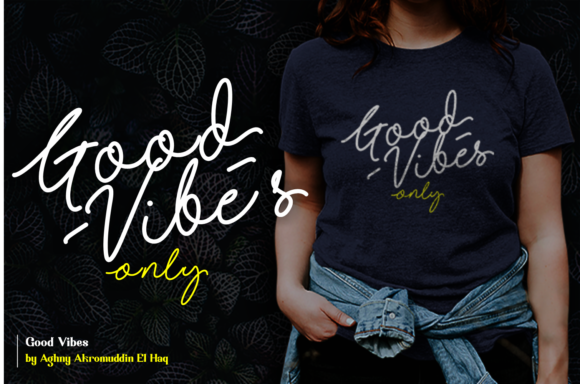
Discover the Joy of Good Vibes Font
Have you ever felt that rush of excitement when you stumble upon the perfect font to bring your design to life? That’s exactly what happened when I discovered the Good Vibes Font. Its elegant, flowing handwritten style has a way of making even the most mundane designs feel special.
The Good Vibes Font is more than just a pretty face – it’s a valuable tool for designers looking to add a touch of personality to their work. With its PUA encoding, you can easily access all of the glyphs and swashes, giving you endless possibilities for creative expression.
Good Vibes Font Key Features
- Font Family: Good Vibes is a handwritten script font designed to evoke a sense of happiness and relaxation.
- Size: Supports a wide range of sizes, from 8pt to 1000pt, making it suitable for various design applications.
- Resolution: Designed to work well at resolutions up to 300 DPI, ensuring crisp and clear typography in various mediums.
- Unique Characteristics: Features a mix of rounded and pointed letterforms, giving it a playful yet elegant feel.
- Language Support: Supports a wide range of languages, including Latin, Greek, and Cyrillic scripts.
Good Vibes Font Review
Overall, I’d say the Good Vibes Font is a pleasant addition to any design project. It’s a playful, handwritten font that’s perfect for conveying a lighthearted and approachable vibe. ✨
- The Good Vibes Font has a unique, hand-drawn feel that adds a touch of personality to any text.
- It’s extremely versatile and can be used for a wide range of applications, from social media graphics to merchandise designs.
- The font is highly legible, even at small sizes, making it perfect for digital use.
However, as with any font, there are some limitations to consider. ⚠️
- The Good Vibes Font may not be the best choice for formal or professional projects, as it can come across as too casual.
- The font can be a bit overwhelming when used in large blocks of text, so it’s best to use it sparingly.
- The font family is relatively small, with only a few weights and styles available.
Overall, I’d give the Good Vibes Font 4 out of 5 stars. While it has some limitations, it’s a great choice for designers looking to add a playful touch to their projects.
Good Vibes Font Practical Application Guide
Tips for Getting the Most Out of Good Vibes Font
1. Use Good Vibes Font for titles and headings to add a touch of whimsy and fun.
2. Pair Good Vibes Font with a clean sans-serif font for body text to create a visually appealing contrast.
3. Experiment with different font sizes, colors, and styles to create a unique and eye-catching design.
1. Social media graphics and posts.
2. Event invitations and flyers.
3. Branding and marketing materials.
4. Digital products and online courses.
Alternatives to Good Vibes Font
The Great Vibes Font is a high-quality, elegant script font that is perfect for creating a sophisticated and luxurious feel. It is ideal for use in branding, invitations, and other materials where a touch of elegance is needed. Compared to Good Vibes Font, Great Vibes Font has a more refined and polished look, making it suitable for more formal occasions.
The Pacifico Font is a beautiful, modern script font that is perfect for creating a relaxed and beachy feel. It is ideal for use in branding, advertising, and other materials where a casual and laid-back vibe is needed. Compared to Good Vibes Font, Pacifico Font has a more fluid and organic look, making it suitable for use in materials that require a sense of freedom and spontaneity.
The Carolyna Pro Font is a modern, elegant script font that is perfect for creating a sophisticated and high-end feel. It is ideal for use in branding, packaging, and other materials where a touch of luxury is needed. Compared to Good Vibes Font, Carolyna Pro Font has a more refined and polished look, making it suitable for more formal occasions.